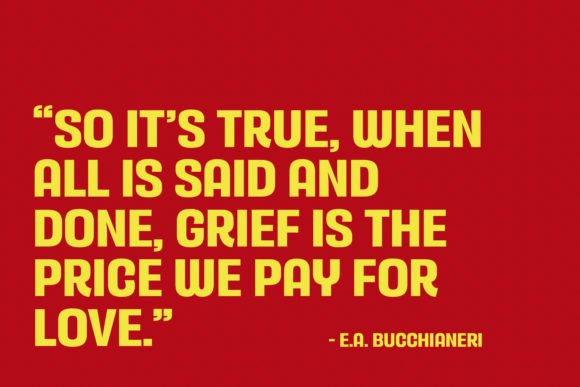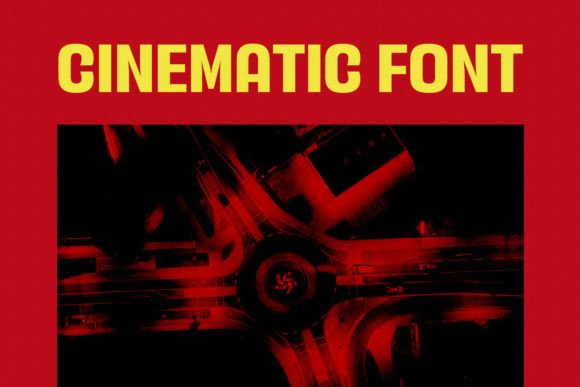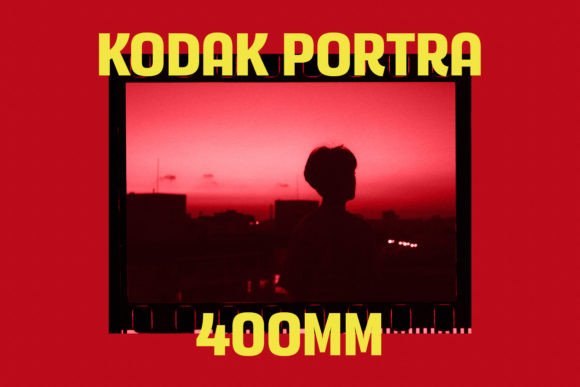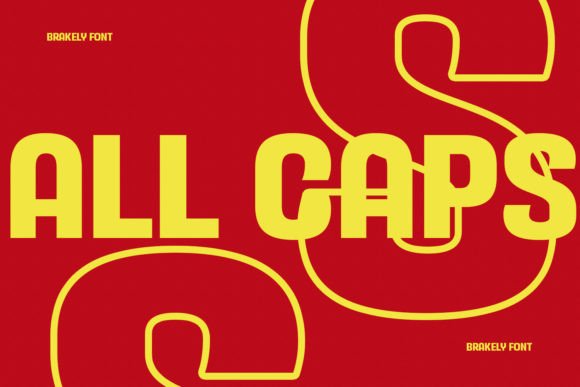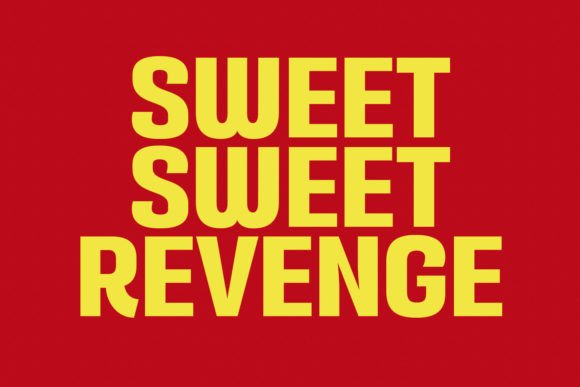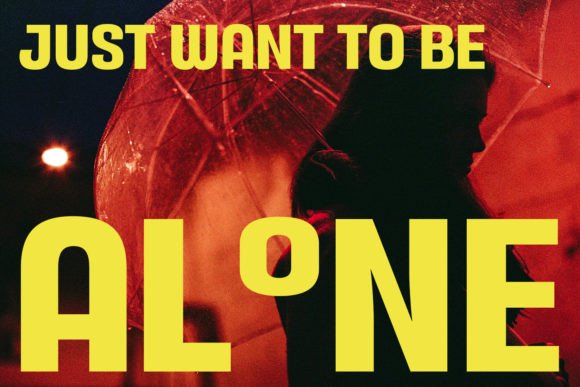
The Perfect Blend of Style and Legibility: Introducing Brakely Font
Have you ever stared at a blank page, waiting for the perfect font to come to life? That’s where Brakely Font comes in – a modern and sleek font that’s designed to capture attention without overwhelming the senses. With its clean lines and rounded edges, Brakely Font is the perfect choice for designers looking to create a lasting impression.
Whether you’re working on a logo, branding project, or headline, Brakely Font is the ideal companion. Its minimalist design makes it easy to read, while its unique curvature adds a touch of personality that sets it apart from more generic fonts. For designers, Brakely Font is a valuable tool that can elevate their work and make it stand out in a crowded marketplace.
Brakely Font Key Features
- Font Family: Brakely Font is a modern sans-serif font, suitable for various digital and print media.
- Character Count: Brakely Font contains a comprehensive set of characters, including uppercase and lowercase letters, numbers, punctuation, and special symbols.
- Unique Characteristics: Brakely Font features a clean, geometric design with subtle rounded edges, making it ideal for modern branding, digital products, and editorial content.
Brakely Font Review
I recently had the chance to work with the Brakely Font, and I must say it’s a mixed bag. Here are my thoughts:
- Clean and modern aesthetic: Brakely Font has a sleek, contemporary look that’s perfect for modern designs.
- Highly legible: The font is easy to read, even at smaller sizes, making it ideal for body text.
- Great for digital use: Brakely Font is optimized for digital screens, ensuring it looks great on web, mobile, and tablet devices.
- Limited versatility: Brakely Font is best suited for modern, minimalist designs. It may not be the best choice for more traditional or ornate styles.
- No bold or italic weights: While the regular weight is clean and modern, the lack of bold and italic options may limit its use in certain contexts.
While Brakely Font has its limitations, it’s a solid choice for modern designs that require a clean and legible font. Its clean aesthetic and high legibility make it a great option for body text, and its digital optimization ensures it looks great on a variety of devices. However, its limited versatility and lack of bold and italic weights may be a drawback for some designers.
Tips for Getting the Most Out of Brakely Font
For best results, pair Brakely Font with bold or cursive fonts to create visual interest.
Use Brakely Font for headings or titles to add a touch of elegance.
Experiment with different font sizes and styles to achieve a unique look.
Brakely Font is perfect for:
– Creative typography projects
Alternatives to Brakely Font for Designers
Playfair Display is an elegant, high-end serif font ideal for luxury brands, magazines, and high-end advertising. Its intricate details and ornate feel make it perfect for creating a sophisticated and refined atmosphere. It’s a great alternative to Brakely Font for designers looking to add a touch of luxury to their designs.
Comparison: While Brakely Font is a modern sans-serif font, Playfair Display is a traditional serif font with a more classic feel. Brakely Font is ideal for modern and minimalistic designs, while Playfair Display is better suited for traditional and high-end designs.
Montserrat is a geometric sans-serif font inspired by the urban landscape of Buenos Aires. It’s perfect for designers who want a clean and modern look for their designs, especially for titles and headings. Montserrat is a great alternative to Brakely Font for designers who want a more urban and edgy feel.
Comparison: Both Brakely Font and Montserrat are modern sans-serif fonts, but Montserrat has a more geometric and urban feel, while Brakely Font is more minimalist and clean.